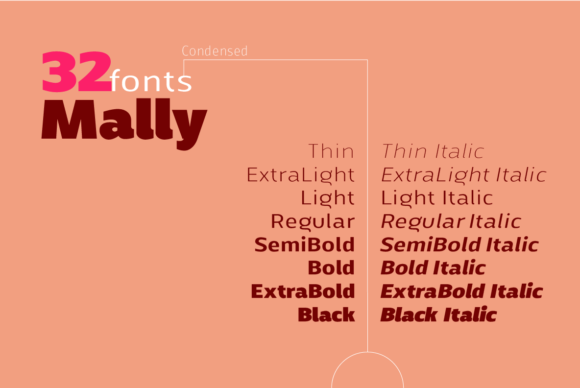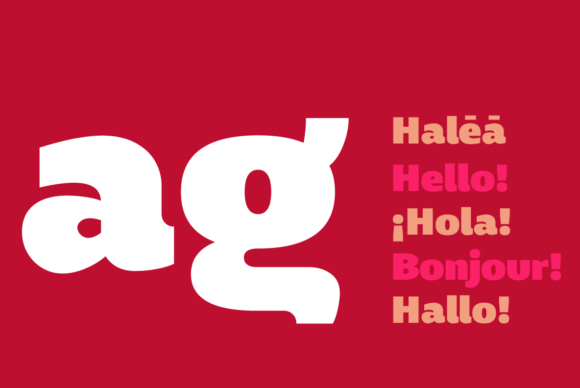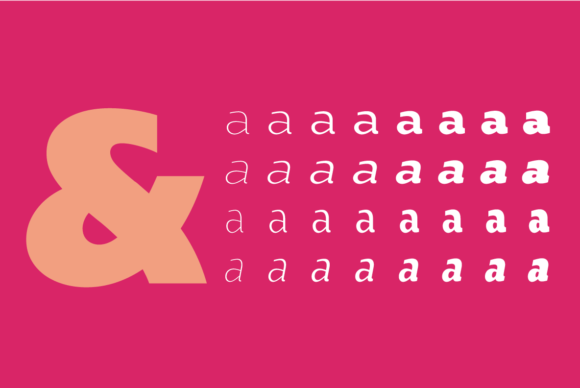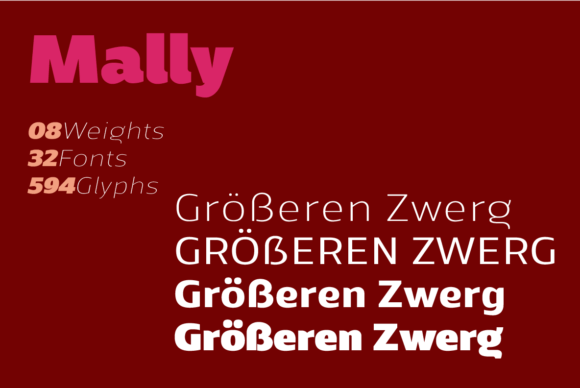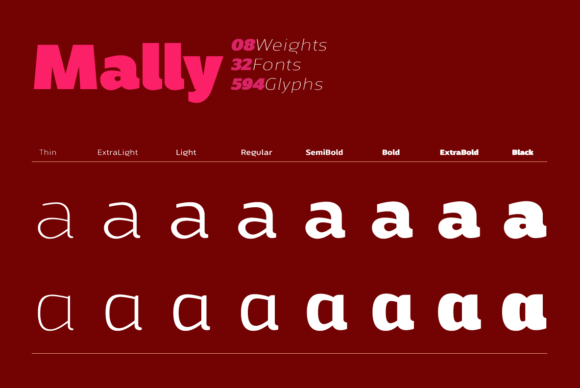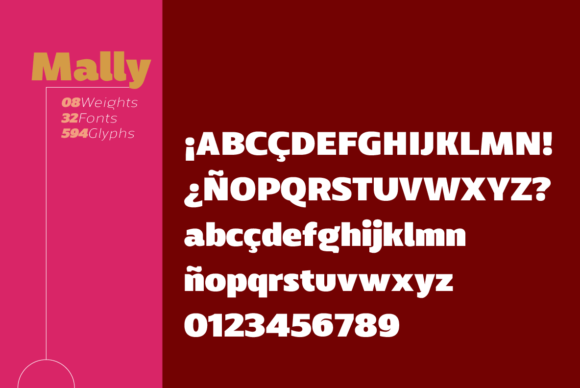
Introduction to Mally Font Font
Fonts play a crucial role in design, and the Mally Font font is a typeface that brings both character and versatility to any project. Whether you’re working on a branding project, a website, or a print design, the Mally Font font offers a unique style that can elevate your work.
Mally is a family of humanist fonts, sans serif with 32 styles, variable with 08 normal and condensed weights and their respective italics, with 594 characters in each font, offers alternative characters, and was conceived as a variable font encompassing various weights and widths.
Characterized by its excellent readability even in the smallest sizes, with a contemporary design it has a wide support of Latin languages .
Key Features of Mally Font Font
Why Choose Mally Font Font?
The Mally Font font is more than just a typeface – it’s a design tool that helps you communicate your message with style and clarity. Its unique character set and versatile design make it suitable for a wide range of applications, from elegant invitations to bold headlines.
With its carefully crafted letterforms and balanced proportions, the Mally Font font ensures readability and visual appeal across all mediums.
What makes Mally Font font special?
The Mally Font font stands out with its unique design, exceptional readability, and versatility across various design applications.